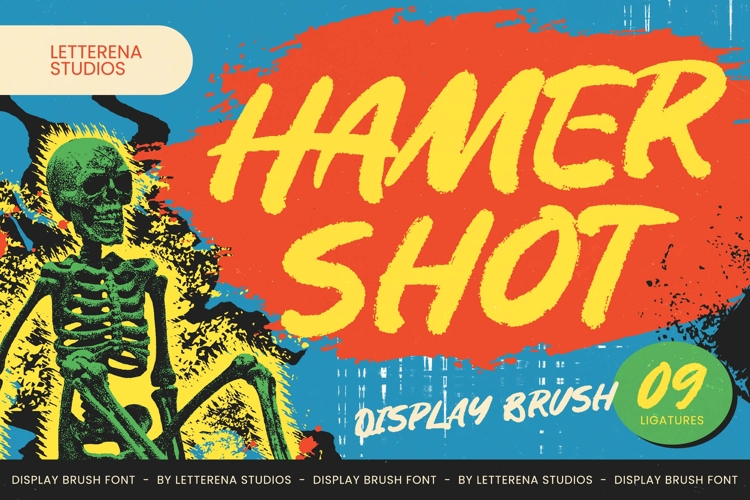
Hamer Shot - Display Brush Font
Command attention with the raw energy and gritty sophistication of Hamer Shot - Display Brush Font. This bold display typeface captures the essence of urban street culture through its textured brush strokes and high-impact presence. Designed for creatives who refuse to blend in, Hamer Shot - Display Brush Font offers a rebellious aesthetic that provides an authentic, hand-painted feel to every project, ensuring your message is delivered with maximum visual power and stylistic authority.
With its extensive multilingual support, Hamer Shot - Display Brush Font adapts seamlessly across global markets, making it incredibly versatile for international projects. This high-performance typeface ensures that your brand voice remains consistent and clear, regardless of the linguistic landscape. By integrating advanced OpenType features, the font provides a fluid user experience for designers looking to maintain a professional edge in a competitive, globalized design market.
Redefine your creative identity with a font that excels in high-impact applications and bold marketing campaigns. Hamer Shot - Display Brush Font is the ideal choice for streetwear branding, extreme sports graphics, music festival posters, and dynamic editorial layouts. It is perfect for creating aggressive headlines, custom apparel designs, and engaging social media content that requires a distinctive, high-energy personality to stand out from the digital noise.
Elevate your design portfolio by incorporating the professional-grade ligatures and meticulous craftsmanship found within Hamer Shot - Display Brush Font. This versatile asset empowers designers to craft unforgettable visuals that resonate with a modern audience. Whether you are working on edgy packaging or cinematic title sequences, Hamer Shot - Display Brush Font provides the creative flexibility needed to turn any conceptual vision into a masterpiece.